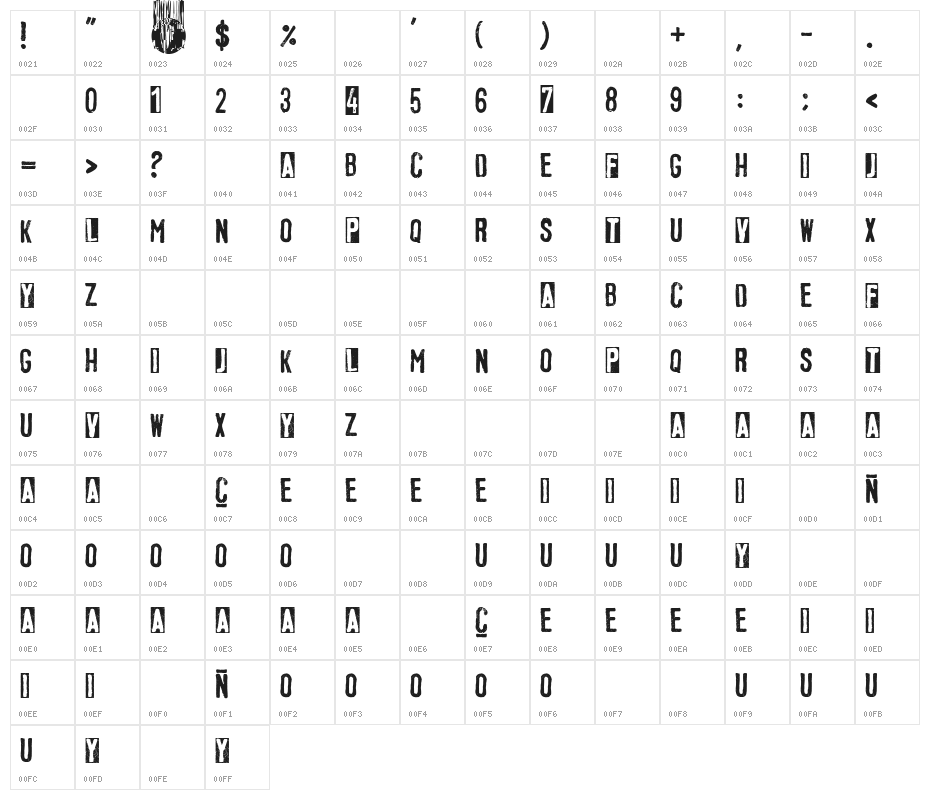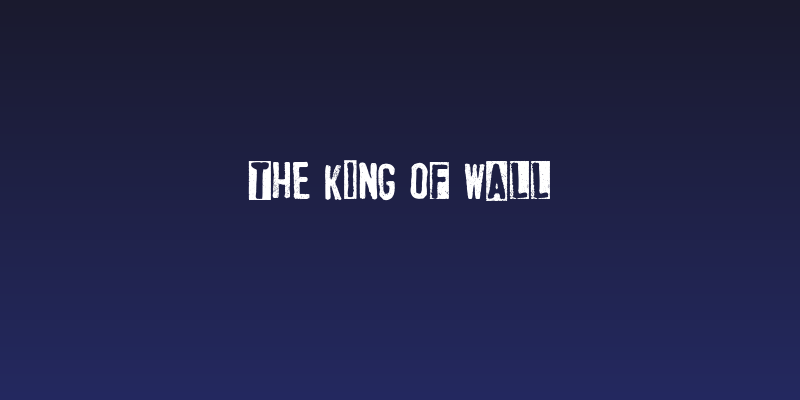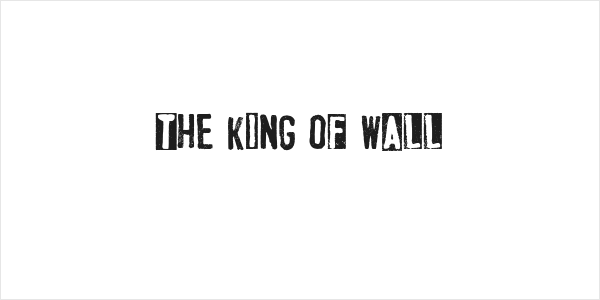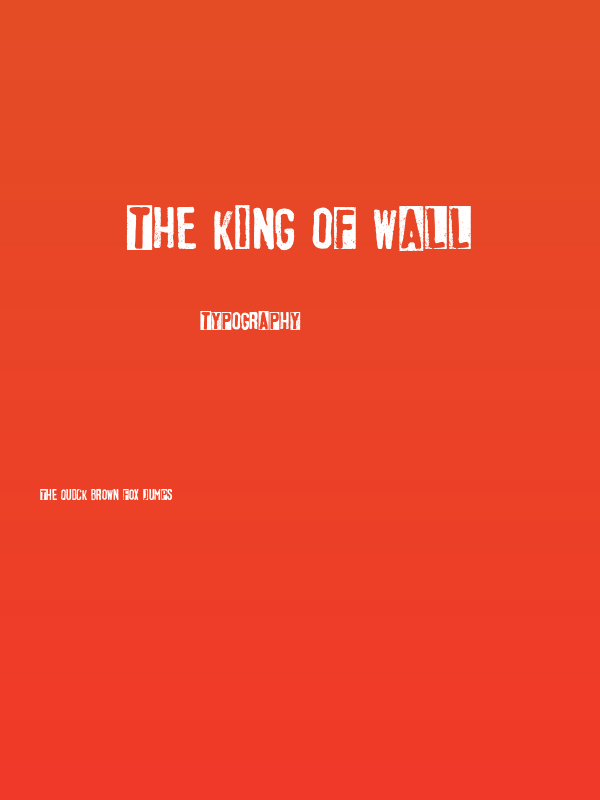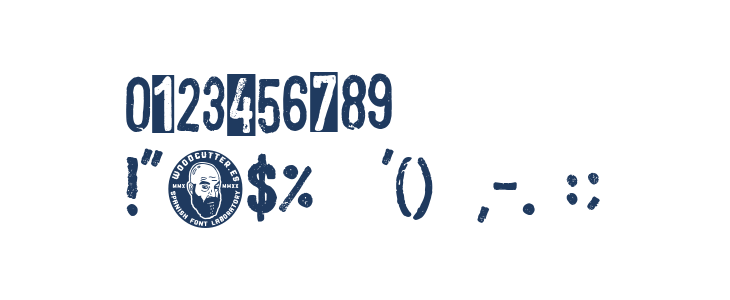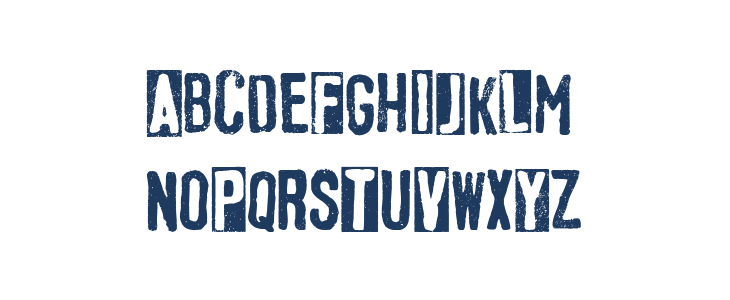
The King of Wall Font
The King of Wall Description
This font features a bold, distressed style with a rugged, textured appearance that mimics the look of worn-out, stamped letters. Each character is uniquely designed with varying levels of distress, giving it a vintage, industrial feel. The uppercase letters are prominent and impactful, while the numbers and special characters maintain the same distressed aesthetic. The font's rough edges and uneven surfaces create a sense of authenticity and character, making it ideal for projects that require a gritty, urban look.
| Overall Style | Vintage, Industrial |
| Proposed Projects | Ideal for posters, album covers, branding for edgy or vintage-themed products, and any design that requires a bold, industrial look. |